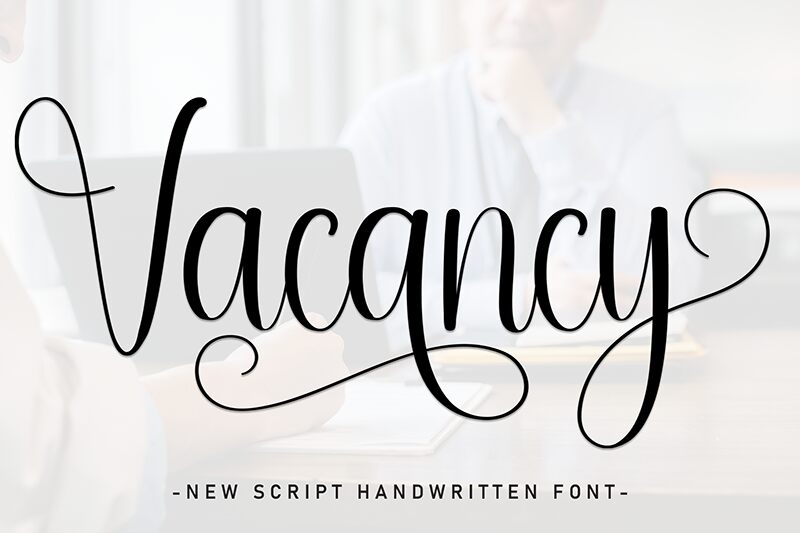
Vacancy
Vacancy font, designed by Andi Moz, is a light, condensed handwritten font characterized by sophisticated modern elegance. It has an expressive flowing cursive script style and looks great while being both fascinating and clear. From business projects to personal ones, this lovely free font can become your newest secret weapon.
Use Vacancy in advertising graphics like billboards and flyers or in product packaging design for deodorants, cosmetics, drinks vitamins etc. Additionally it can work in multiple digital designs such as HTML banners and social media images especially for Instagram merchandise ideas where promotions; catchy phrases shine through every line with its elegant presence.